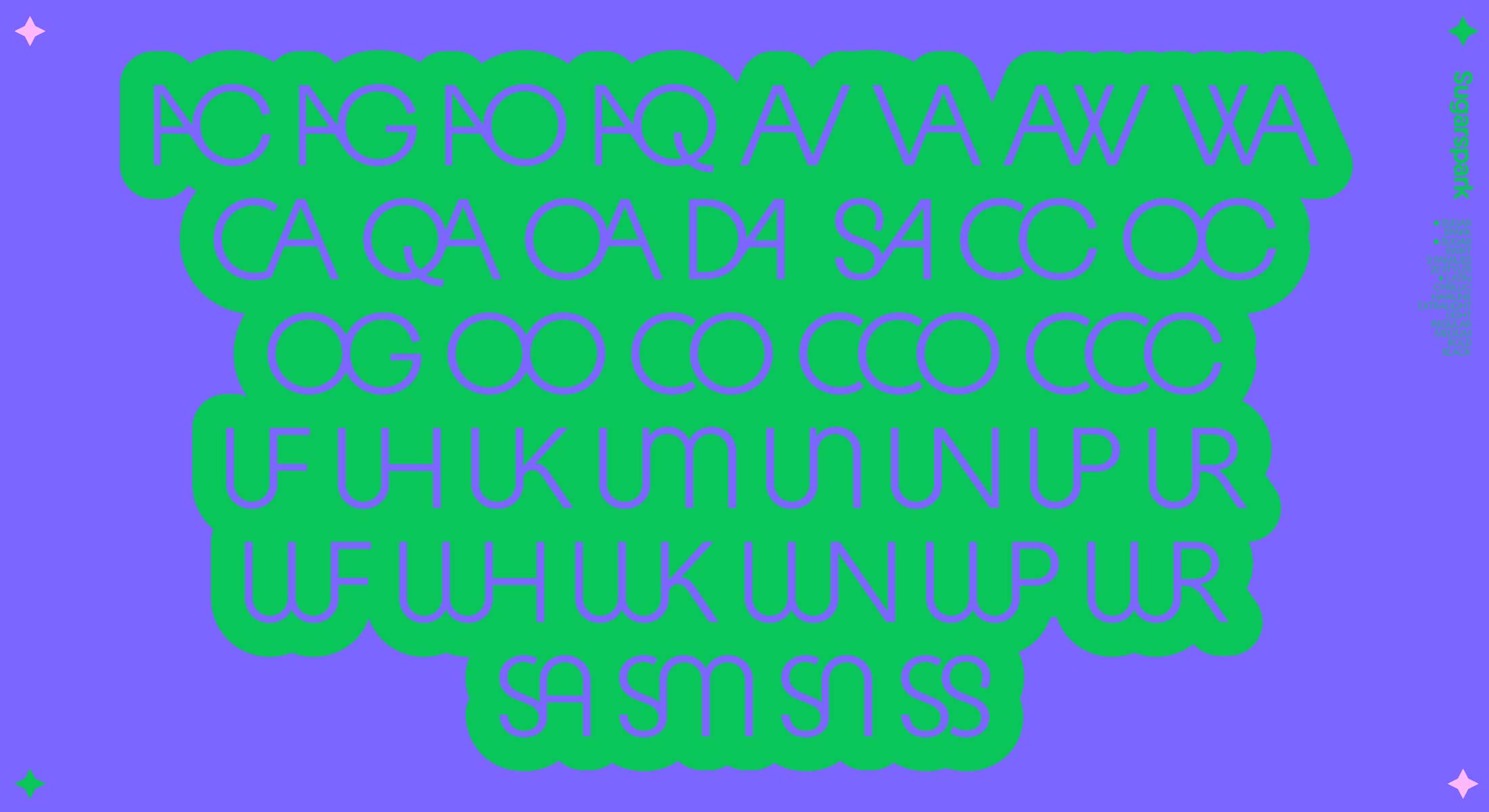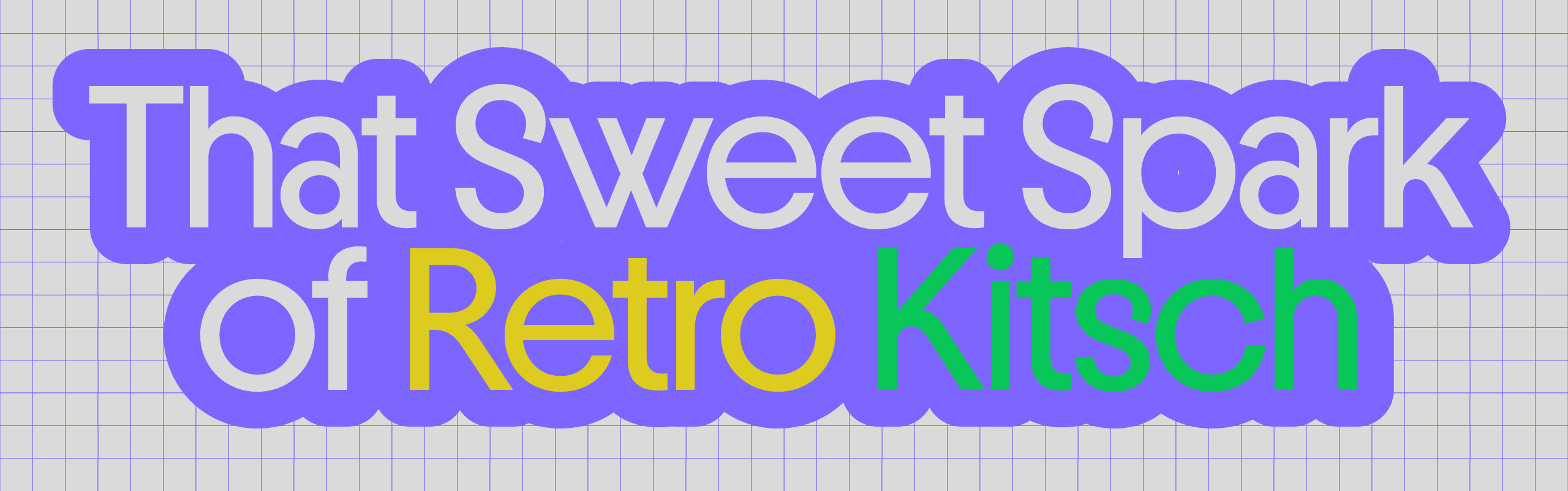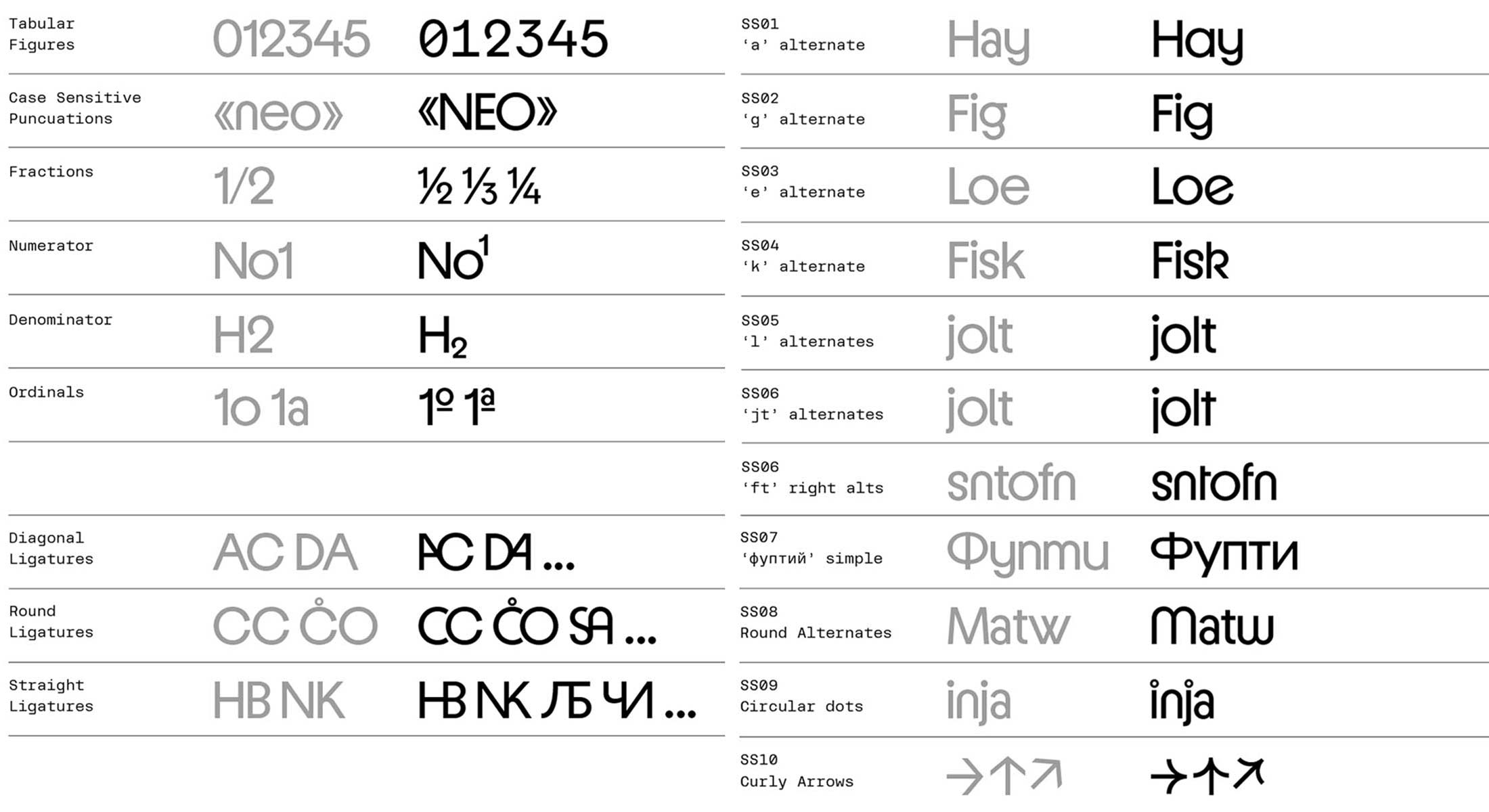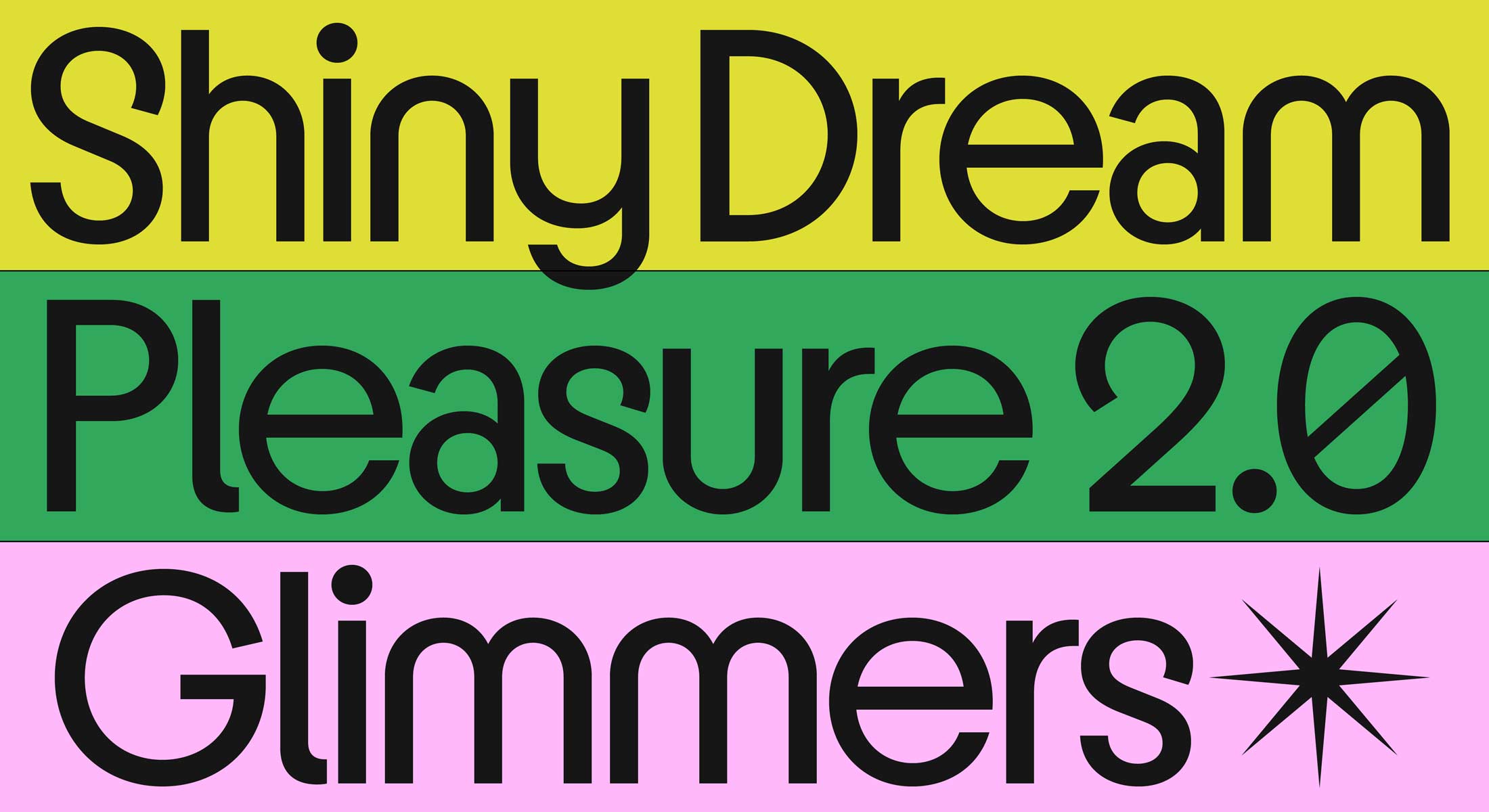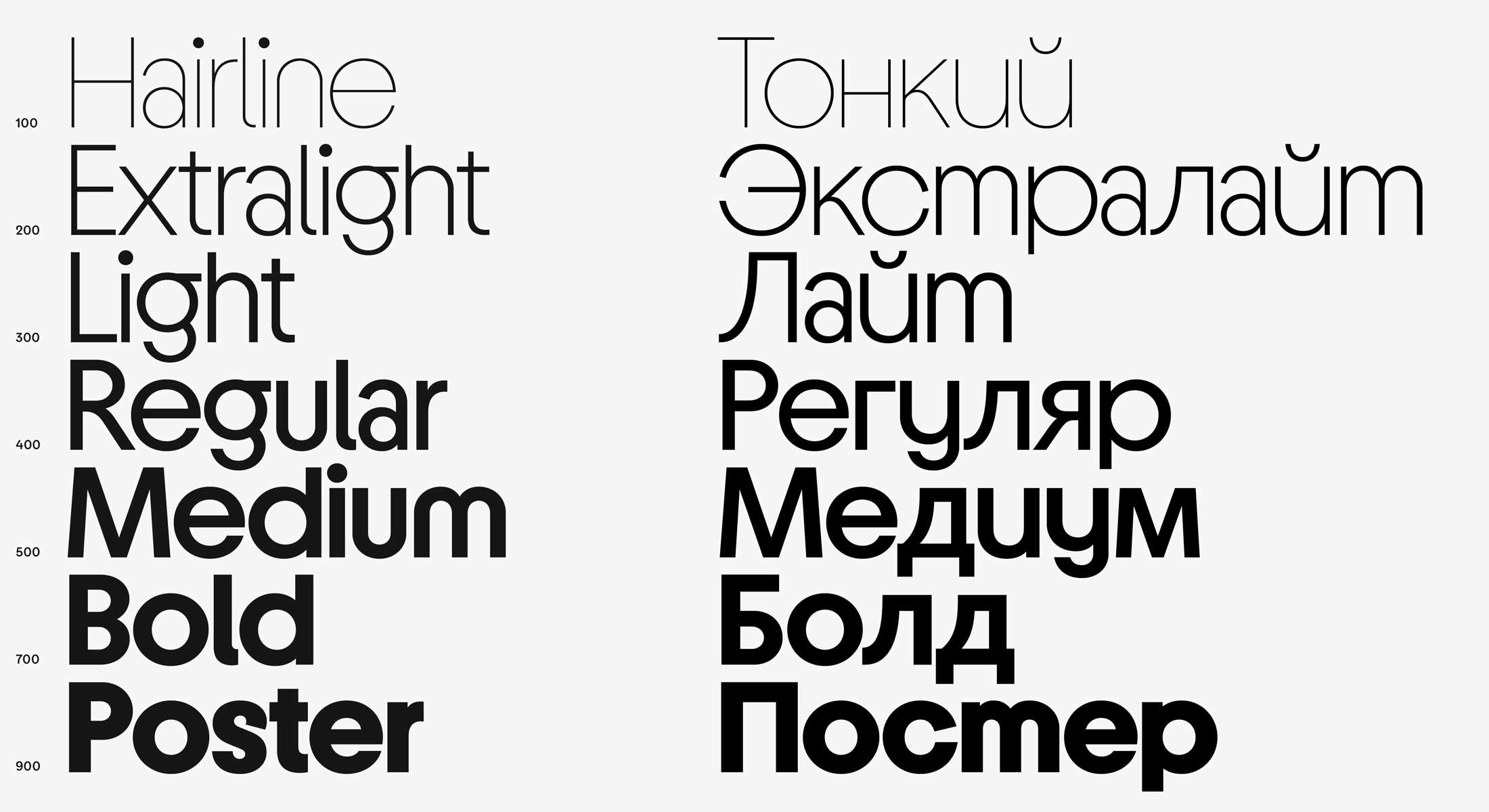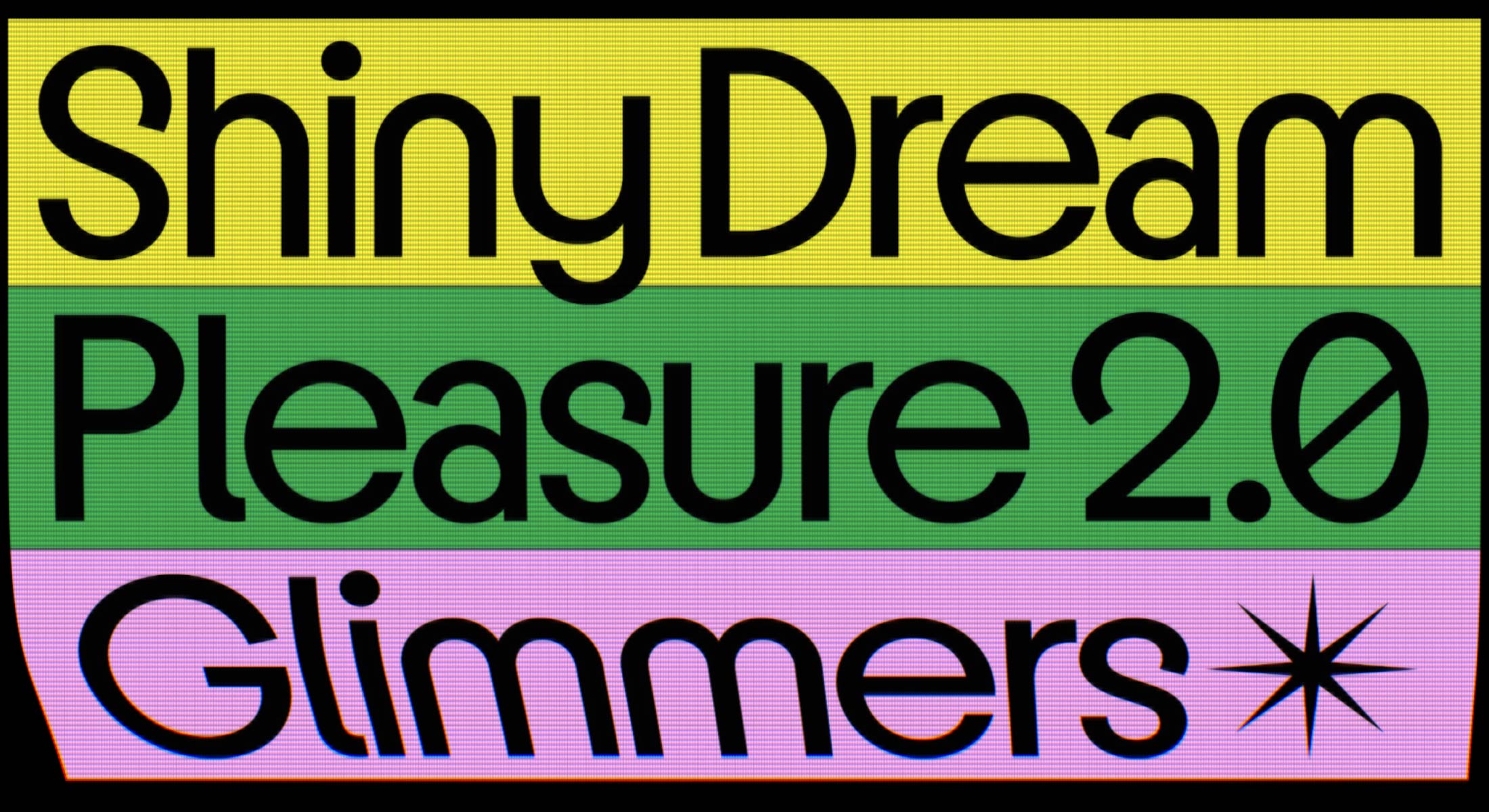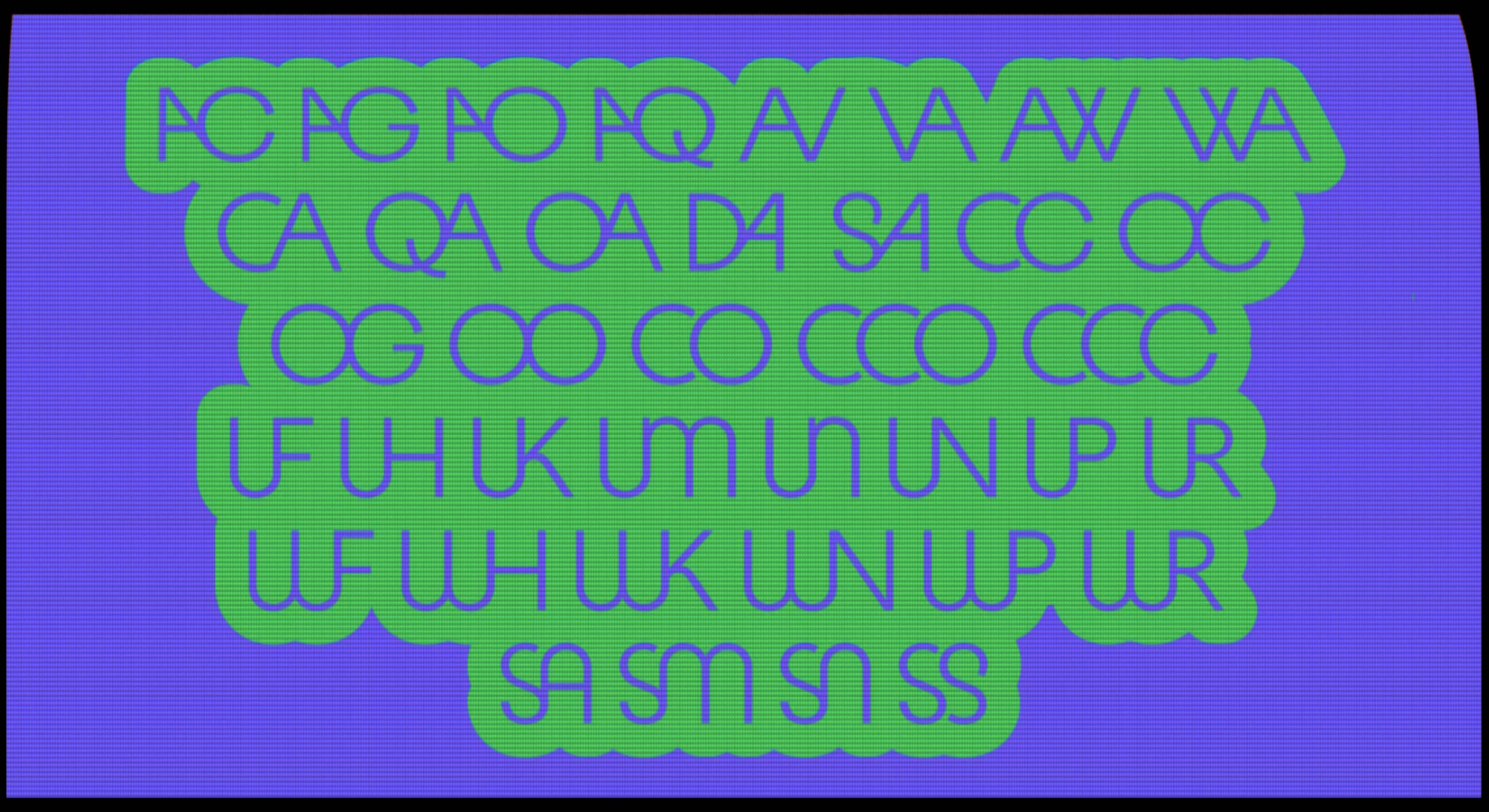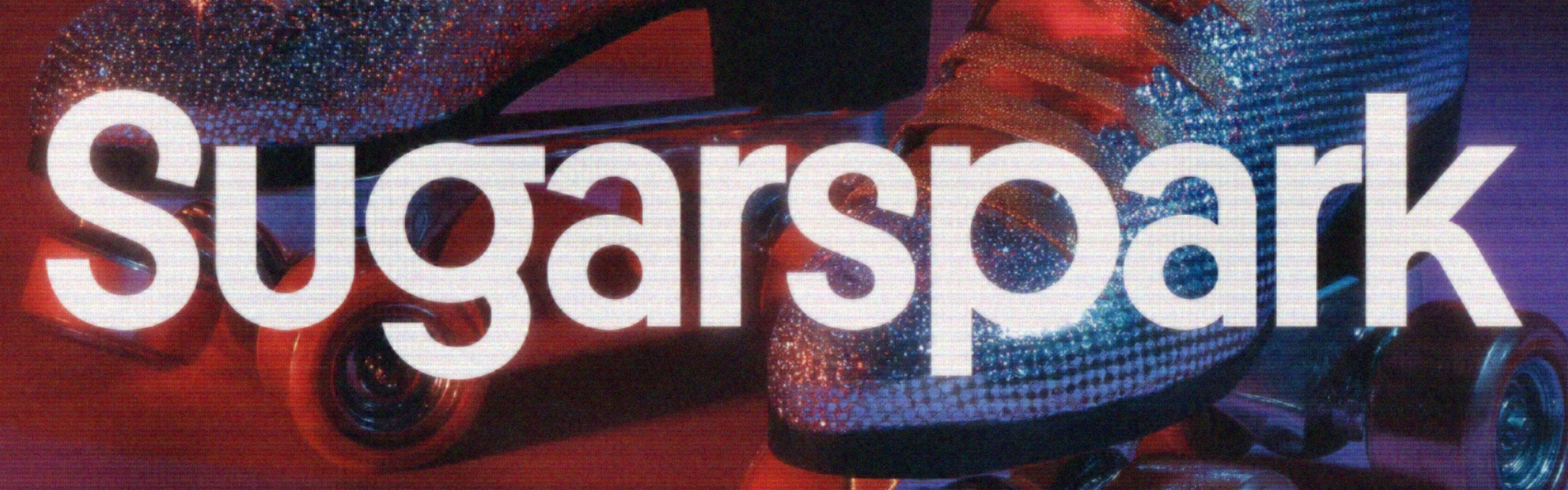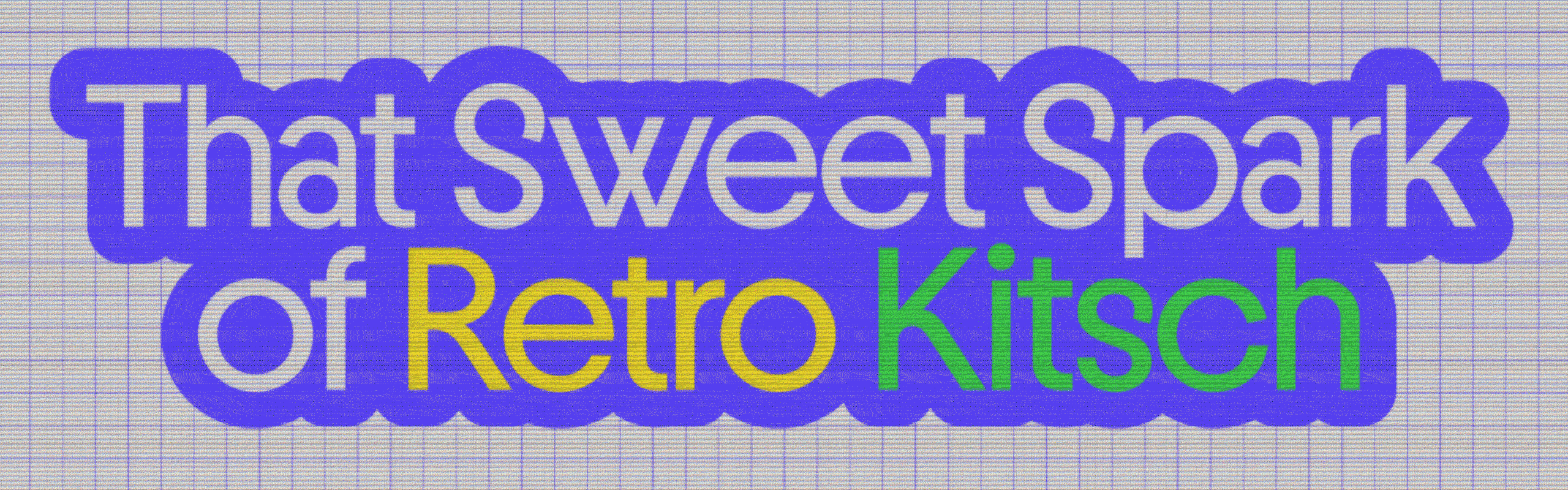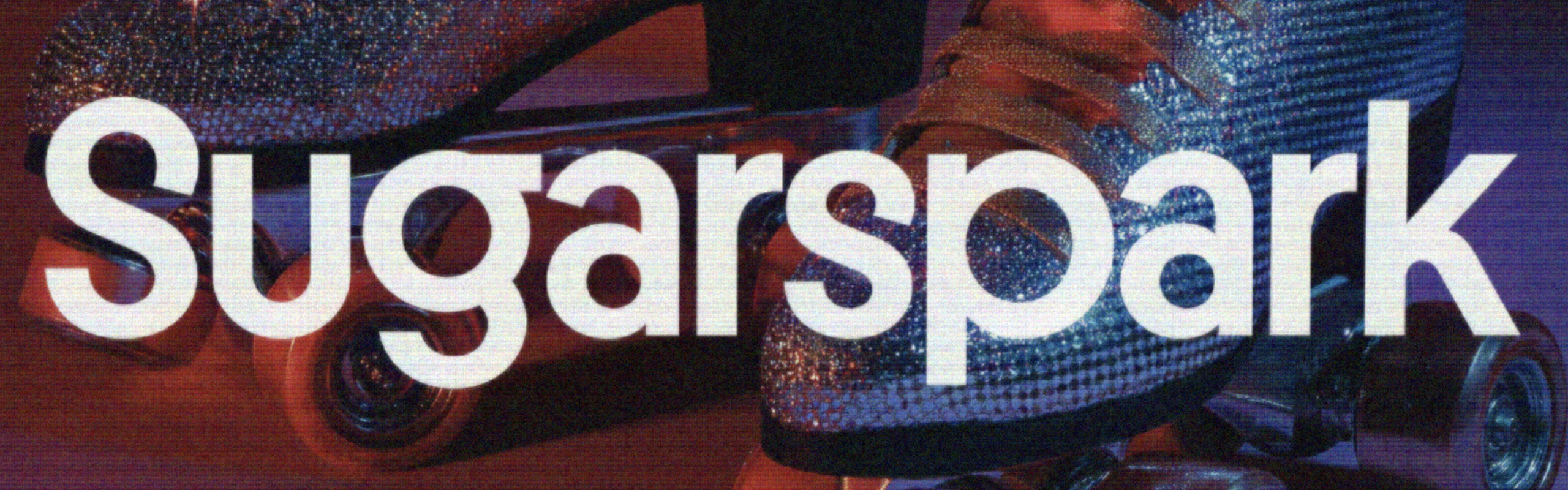
Sugarspark & Sugarswift story
Sugarspark is a sweet spark of retro kitsch, a spirited blend of idealism, simplicity, playful sophistication, and free-spirited optimism. Its charm draws from the eccentric geometry of Kabel, the honest reductionism of Avant Garde, and the simplicity and naïveté of the Bauhaus. The result is a display face that feels both sparkly and sincere: open, slightly naïve, yet unmistakably confident.
With tight spacing, tall x-height, and wide circular forms, Sugarspark creates a bright midline that gives headlines a crisp, electric rhythm. Flat and angled terminals add subtle imbalance and liveliness, echoing the optimism of early video consoles and space-age design. Sugarspark Cyrillic extends this warmth with handwritten forms, while alternates and OpenType features broaden its expressive range.
Sugarswift adapts this spirit for text: spacing opens, proportions settle, and optical refinements ensure readability. Forms become more fluid and continuous, while Cyrillic returns to classical shapes for steady reading.
Together, Sugarspark and Sugarswift balance retro optimism, the charm of naïveté with contemporary clarity.